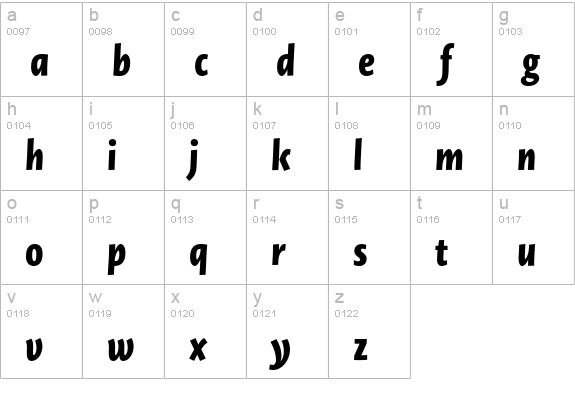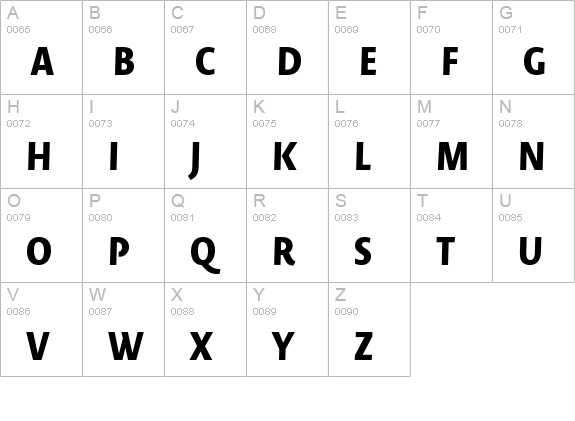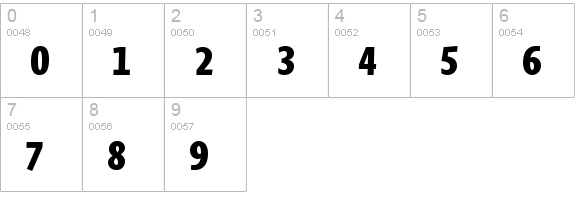
Novel SansCond Pro ExtraBold Italic Font Details
Novel SansCond Pro ExtraBold Italic is an extra-heavy, attention-grabbing, italic variant in the Novel typeface family \xE2\x80\x94 well suited to high-impact headlines, posters, and bold branding.
Novel SansCond Pro ExtraBold Italic is a bold and dynamic font that exudes sophistication and modernity. With its sharp angles and sleek curves, this typeface is perfect for making a bold statement in your designs. The italicized style adds a touch of elegance and flair, making it ideal for headings, titles, and other prominent text elements. What sets Novel SansCond Pro ExtraBold Italic apart is not only its striking appearance but also its versatility. Whether you're designing a poster, website, or branding materials, this font will help your message stand out and capture attention. And the best part? Novel SansCond Pro ExtraBold Italic is available for free download at FontsMarket.com. So why wait? Elevate your designs with this powerful and expressive font today!